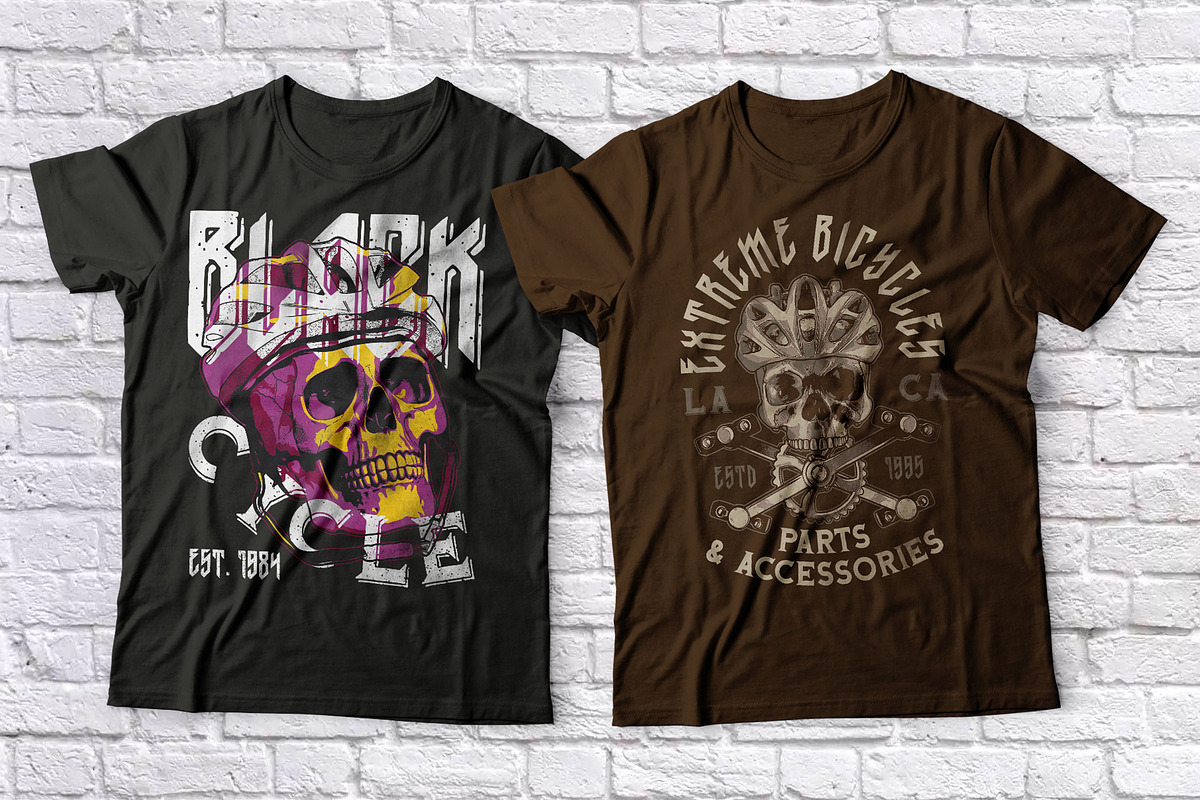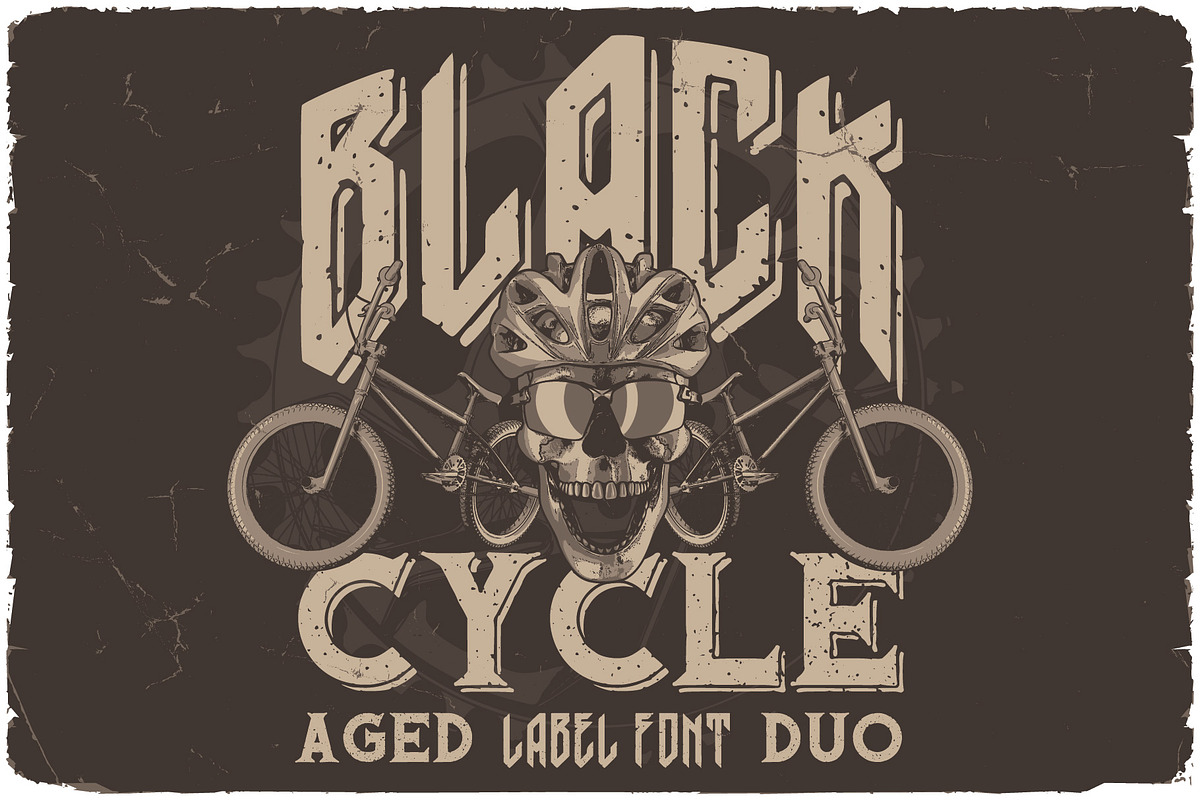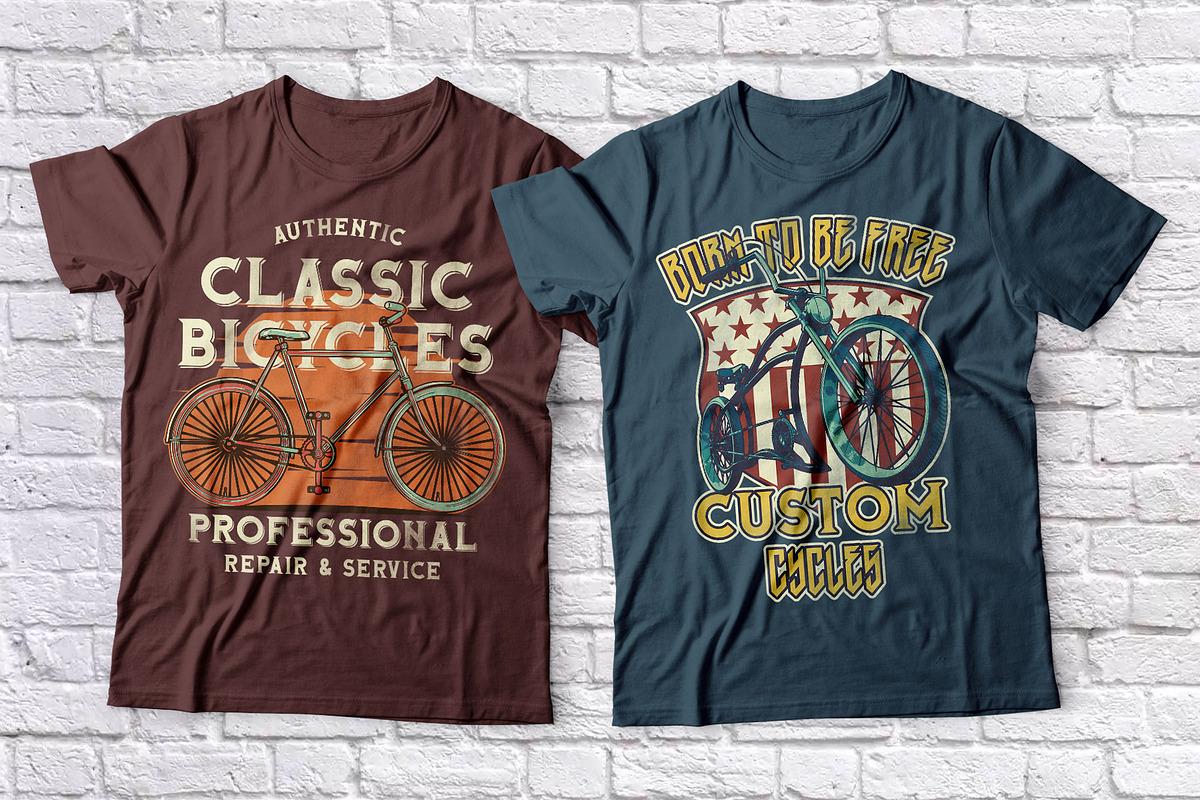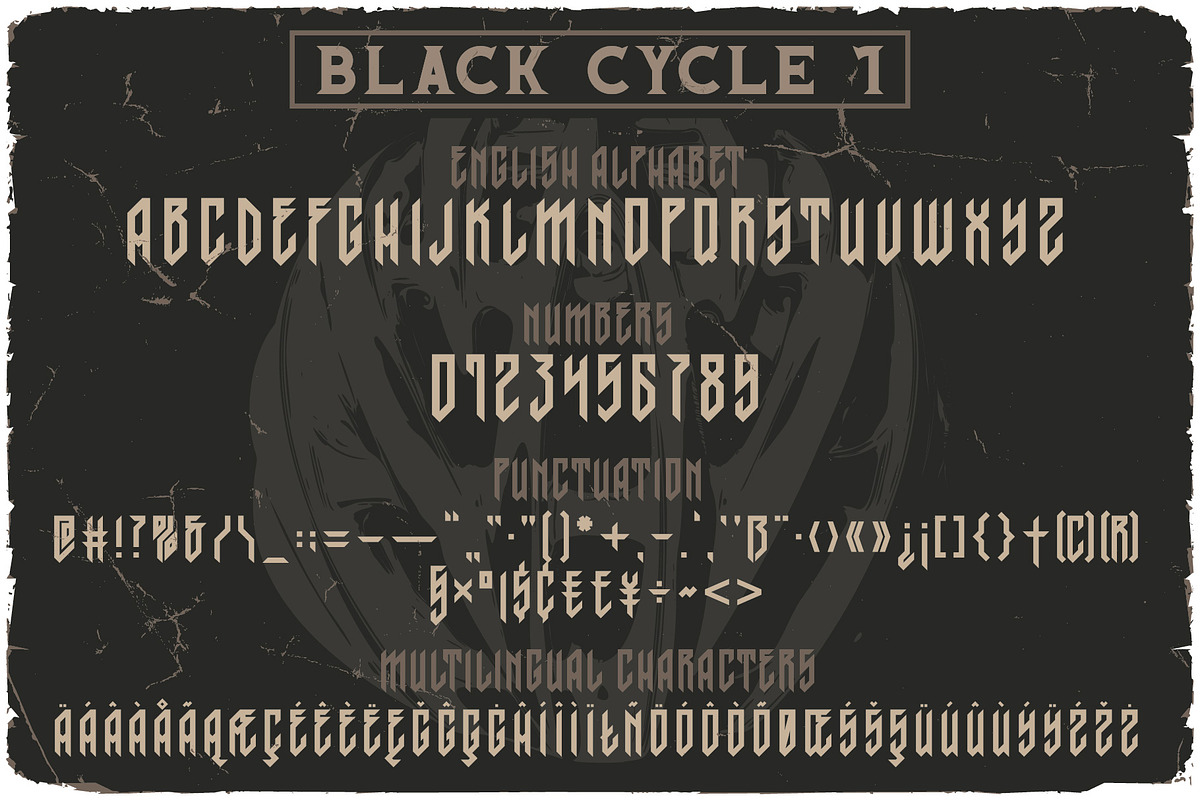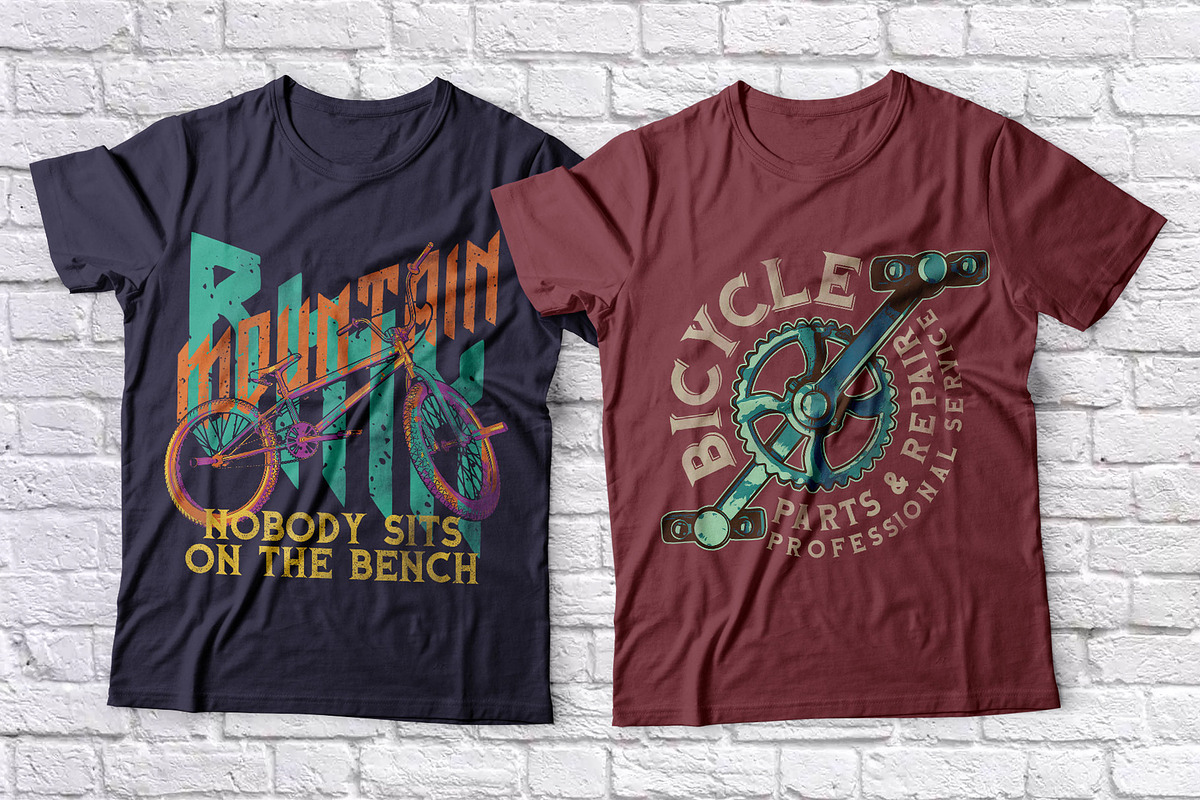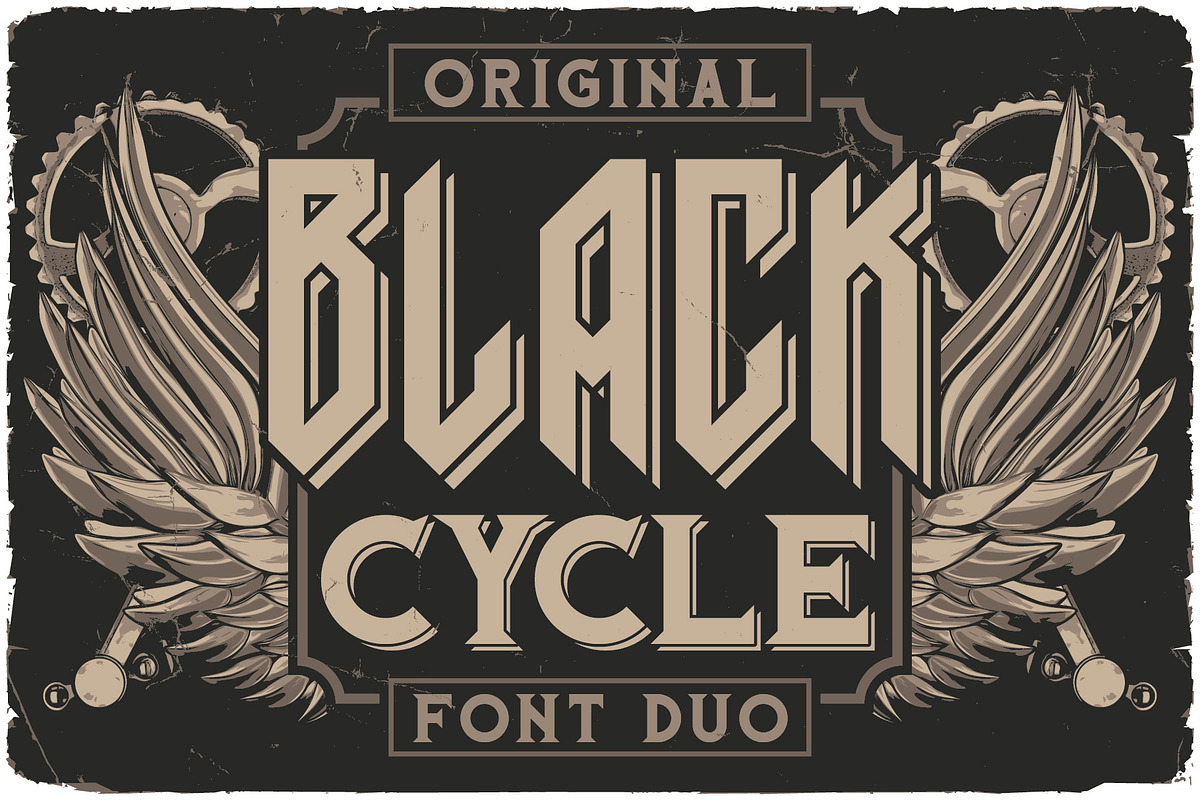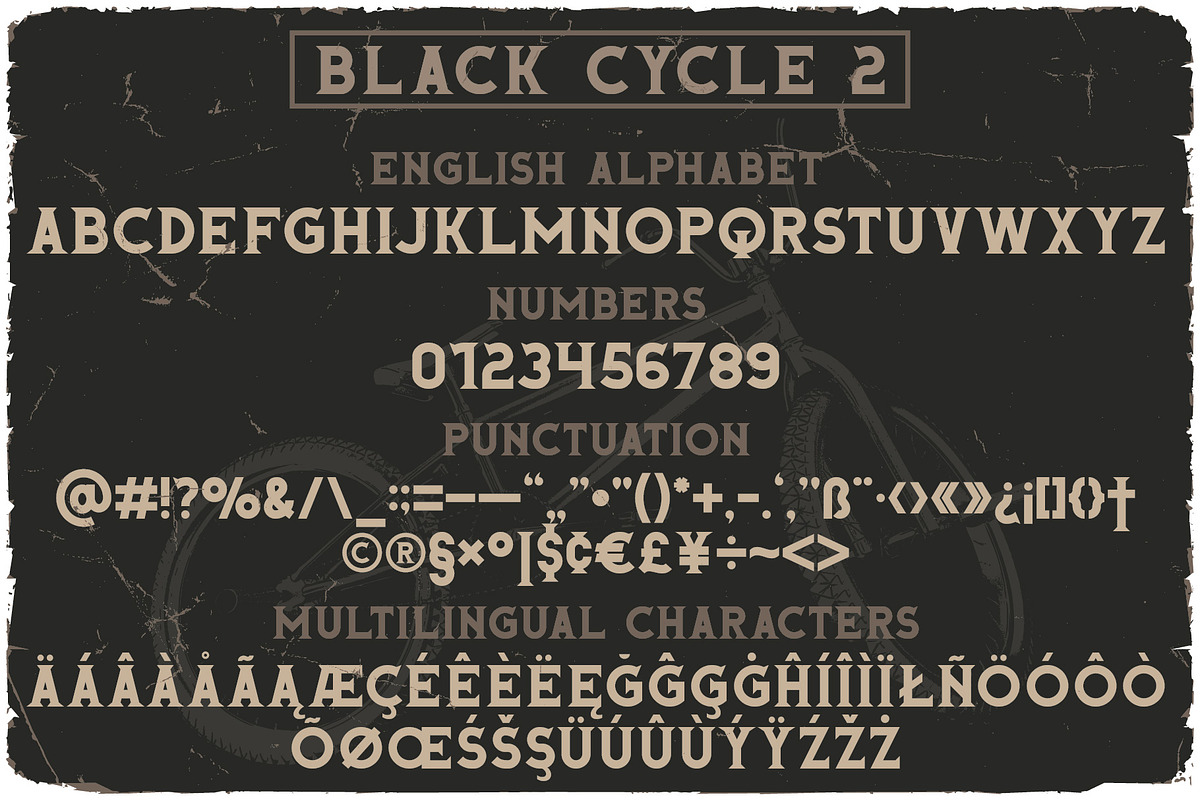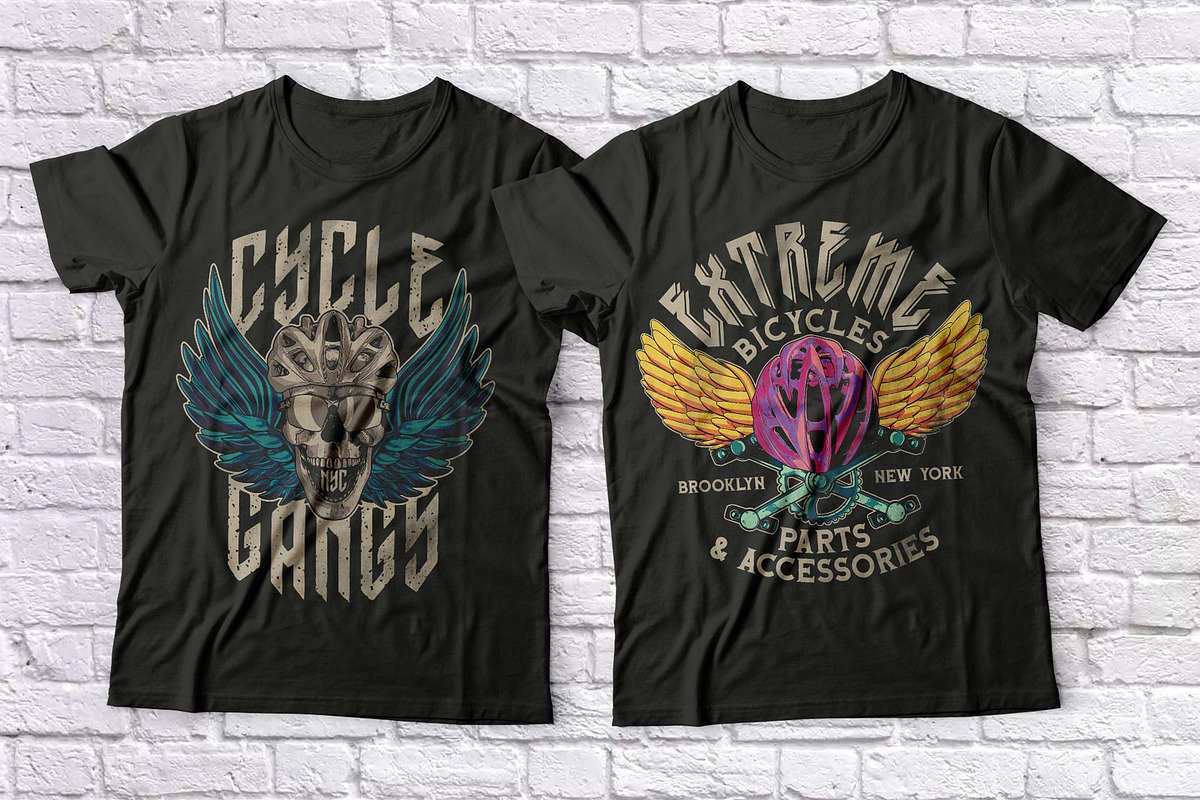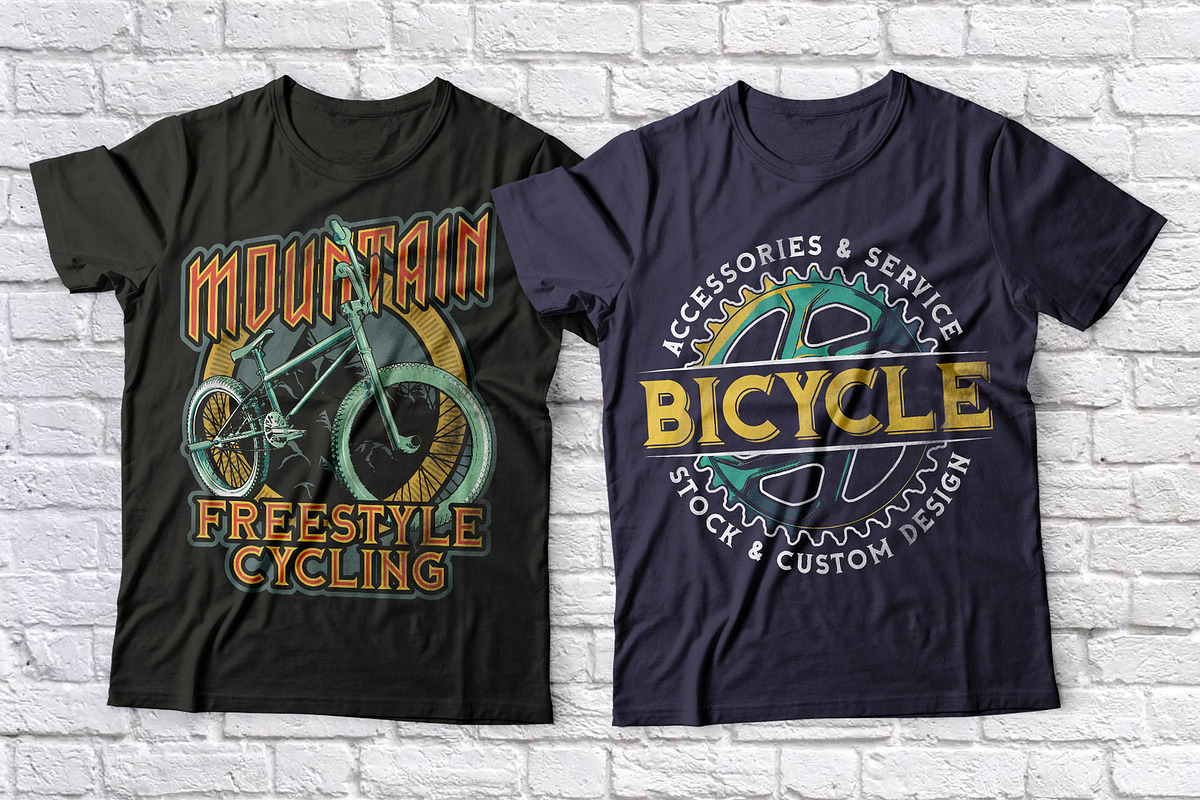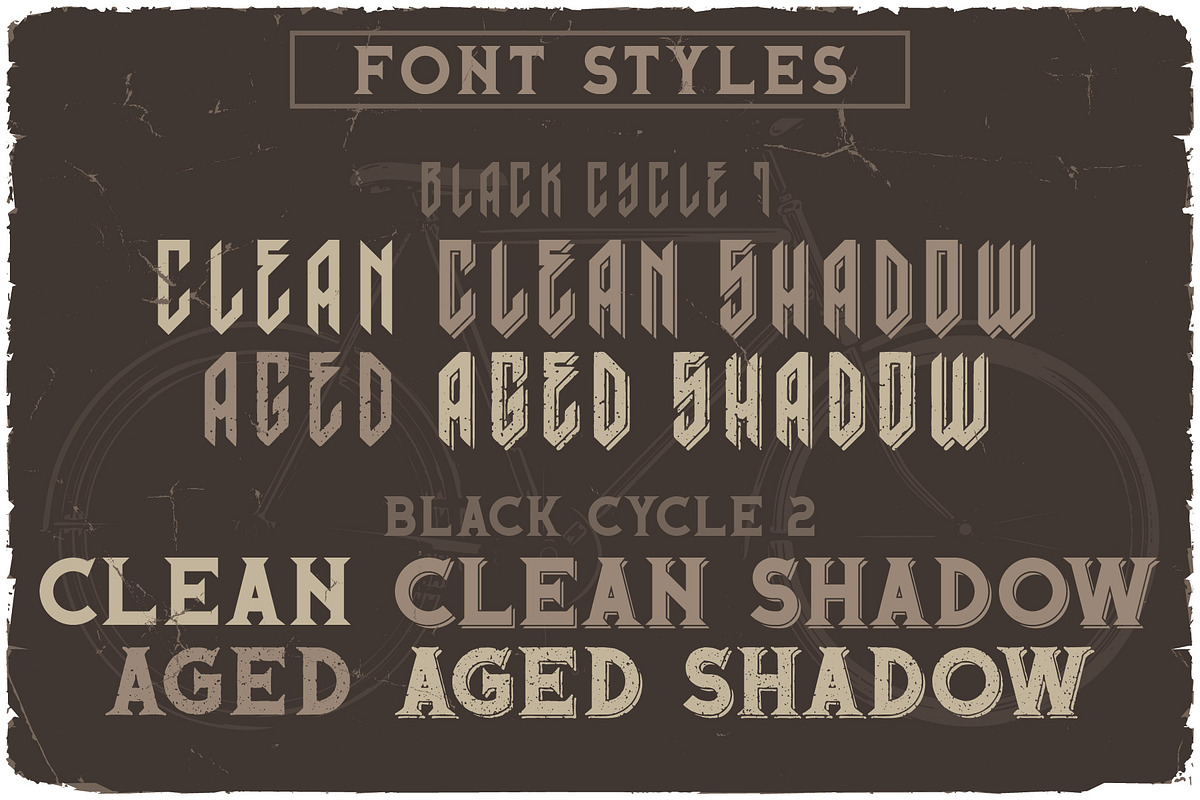
Black Cycle Font DUO
Introducing vintage label font duo named Black Cycle. These two fonts has an additional characters and multilungual support (check out all available characters on previews). Both of font familes has four styles: Clean, Clean Shadow, Aged and Aged Shadow. This font will look good on any vintage styled designs like a poster, T-shirt, label, logo, etc.
- A lot of additional symbols and multilingual support.
- Two different fonts that combine to create a chic vintage look.